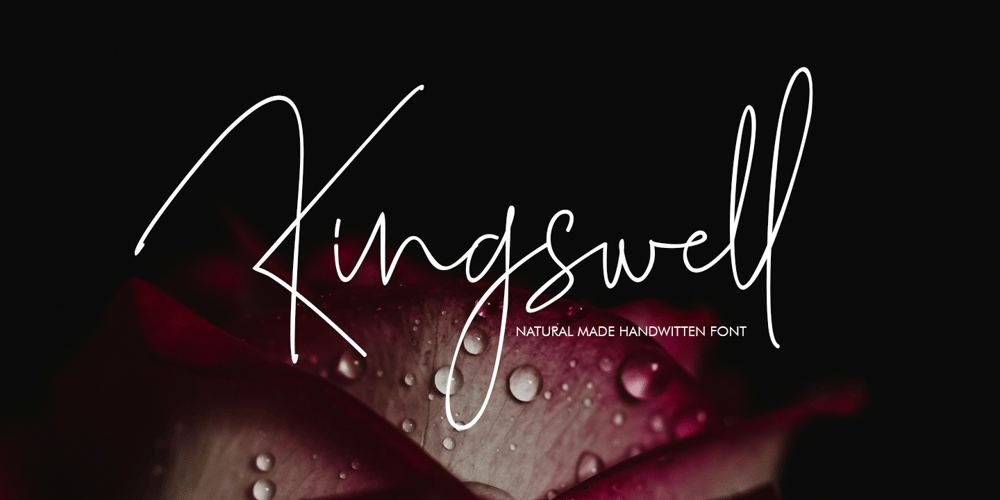
Kingswell Font Family was designed by Ayi Teiry and published by eyetype. Kingswell contains 1 styles and family package options. Kingswell TYPOGRAPHYKingswell a work that is purely a result of handwriting, has a natural characteristic. this is perfect for invitations, signatures, blogs, social media, business cards, product brands.Kingswell a work that is purely handwritten, has its own characteristics with the style of monoline It is perfect for invitations, signatures, blogs, social media, business cards, product brands, also equipped with 63 ligature.FILE INCLUDEKingswell (OpenType,PUA) OpenType features can be accessed by using OpenType smart programs such as Adobe Photo Shop, Adobe Illustrator, Adobe Indesign, Corel Draw and Microsoft Office. can also be accessed through the character map.